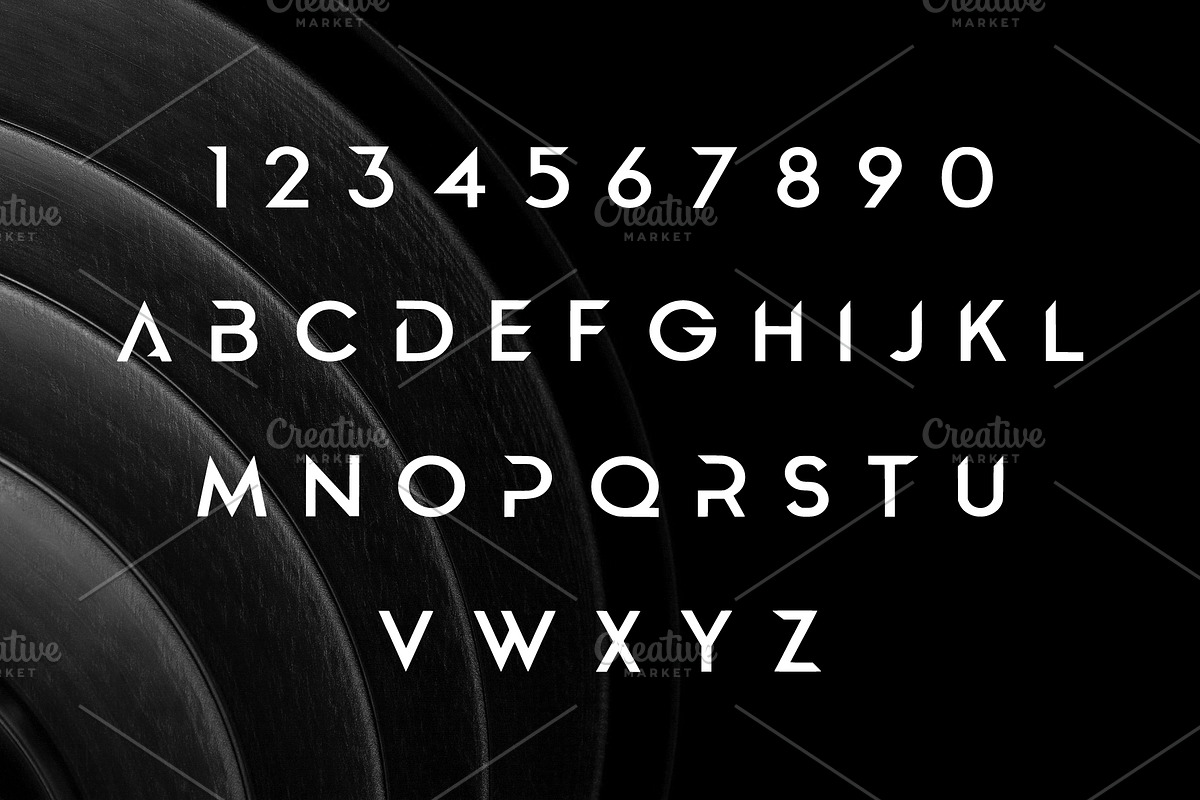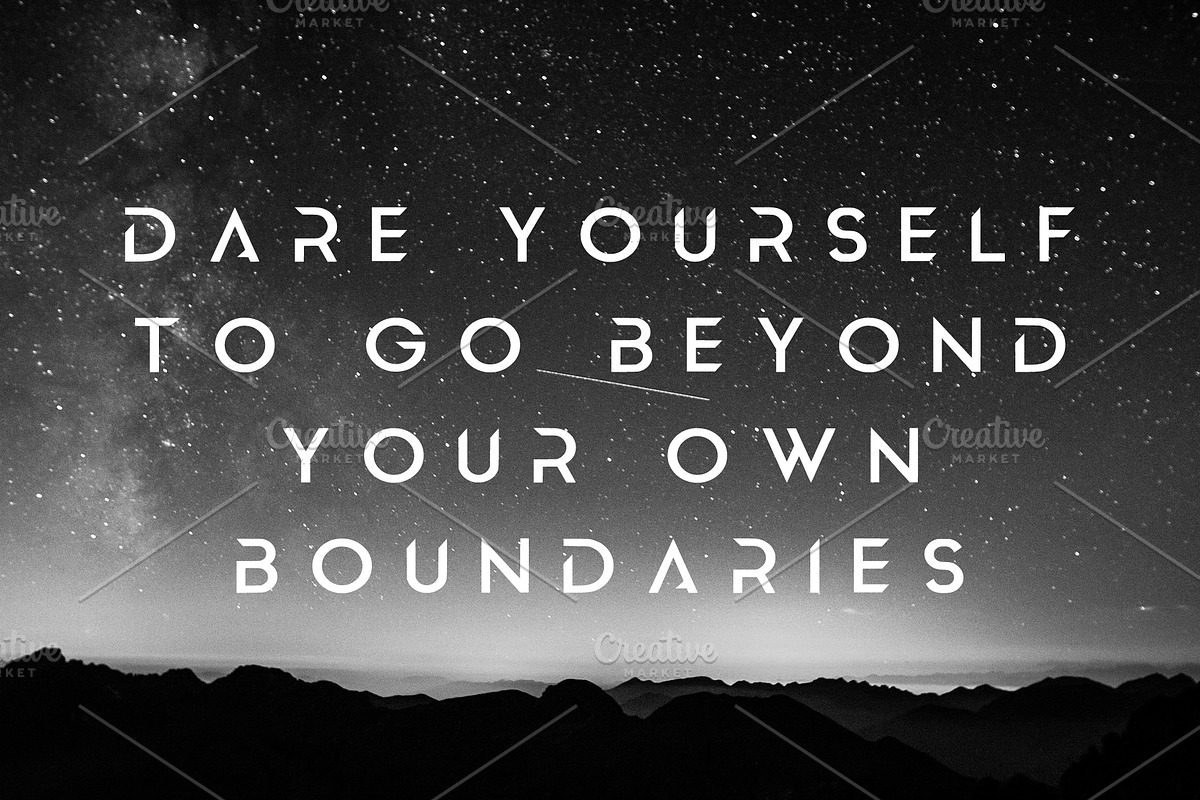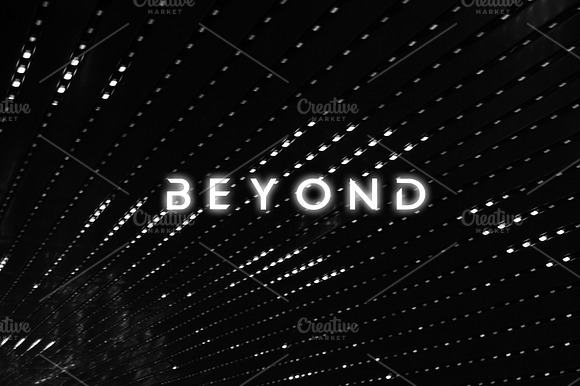
BEYOND - modern sans serif font
A modern sans serif vector display font
a font with an modern technological feel, a bit of sci-fi, space, inspired by the future and beyond. perfect for technology, sci-fi and futuristic theme
BEYOND - modern sans serif font by MoonBandit fits naturally into Branding, posters, packaging, typography.